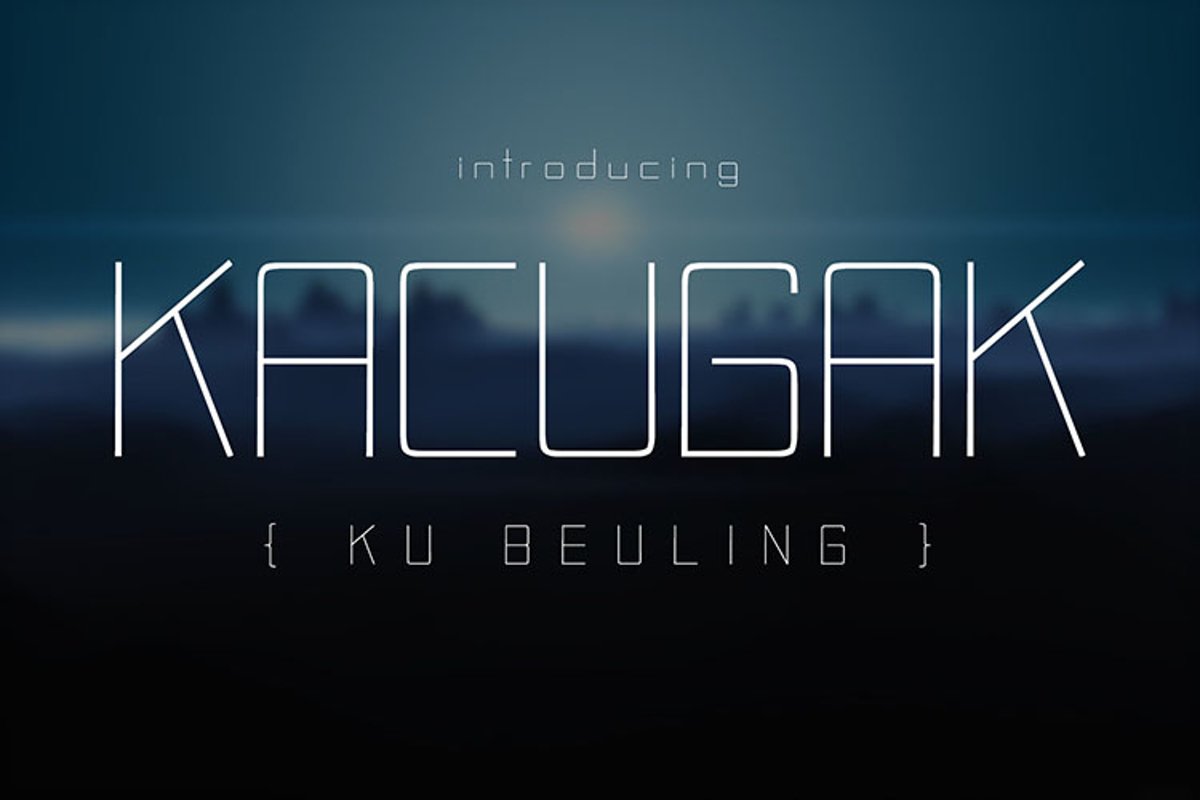
Kacugak
Kacugak is a simple and casual sans serif font with an undeniably clean
feel. With its neat and beautiful arrangement of letters, this typeface
will look outstanding in both formal and non-formal designs.